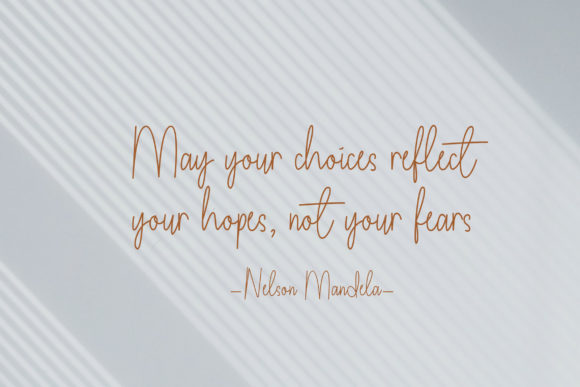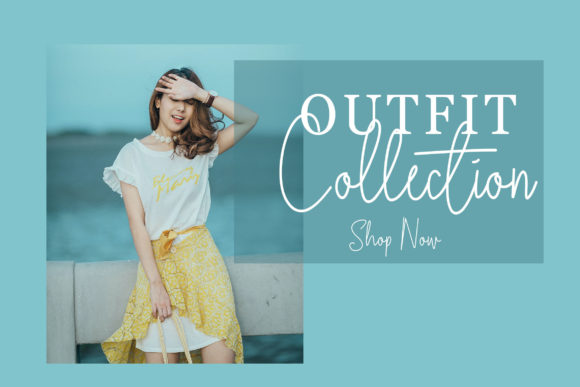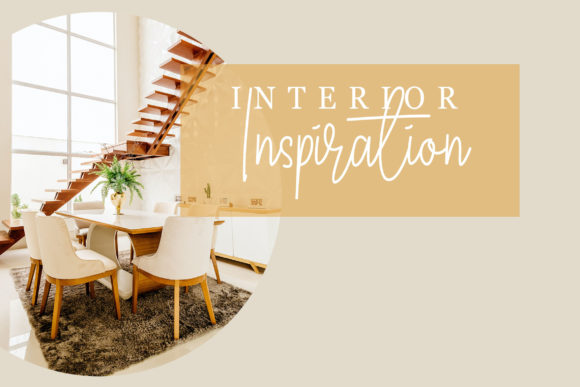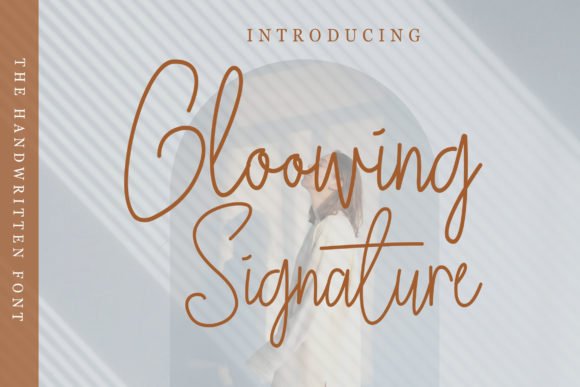
Introduction to Gloowing Signature Font
Gloowing Signature is a chic, refined script font that emanates sophistication and elegance.
Its stylish alternates and ligatures make this font the perfect match for any project .
Key Features of Gloowing Signature Font
Why Choose Gloowing Signature Font?